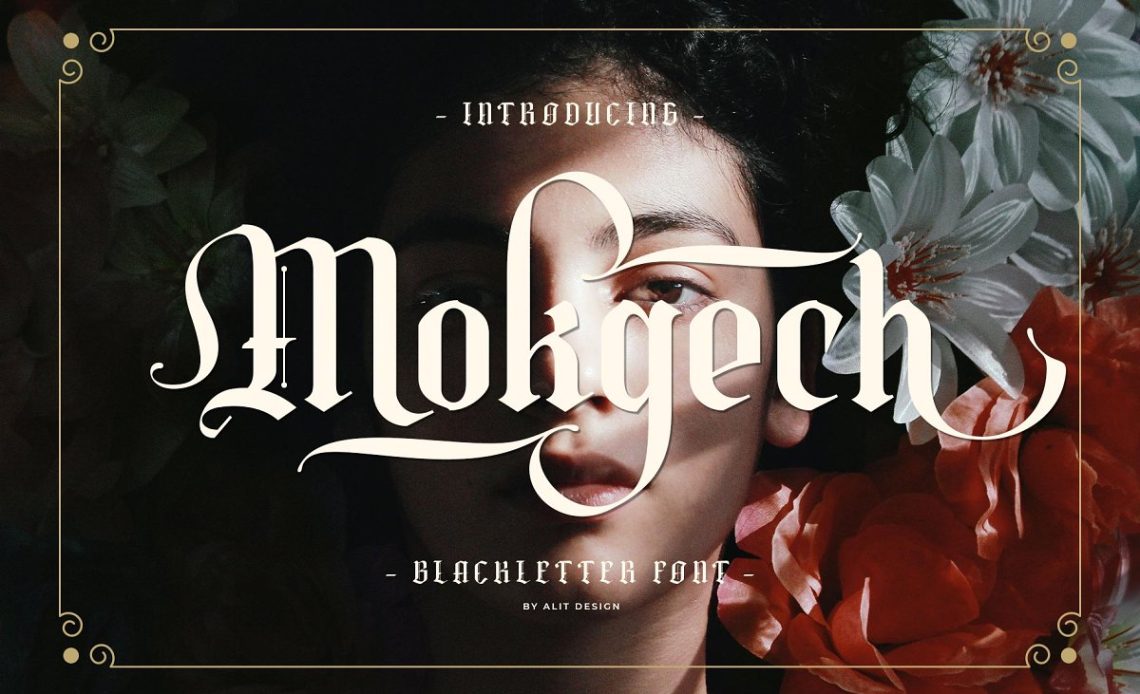
Introducing the Mokgech Typeface, a captivating and versatile blackletter font that will bring a touch of cool old style to your designs. Created by the talented Alit Suarnegara, this font is a must-have for anyone looking to elevate their projects with a touch of elegance and sophistication.
With its wide range of alternative characters including swashes, ligatures, and various uppercase and lowercase options, the Mokgech Typeface offers endless possibilities for creative expression. Whether you're working on a gothic, tattoo, serious, or horror-themed design, this font will add that perfect touch of intrigue and uniqueness.
But the Mokgech Typeface doesn't stop there. It also comes with an italic version, allowing you to add a sense of flair and emphasis to your text. Imagine the impact this font will have on your alcoholic beverage packaging, tattoo designs, pomade labels, or barbershop branding. With its Victorian classic concept, the Mokgech Typeface is sure to leave a lasting impression on your audience.